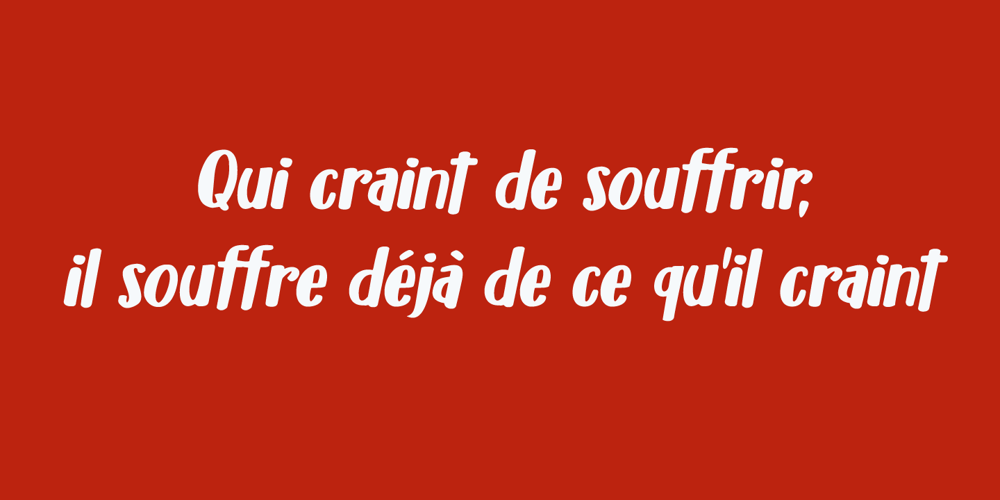
Millefeuille Font Family was designed by David Kerkhoff and published by Hanoded. Millefeuille contains 4 styles and family package options. Millefeuille literally means ‘thousand leaf’. It is a French dessert, consisting of many very thin layers of puff pastry and such fillings as whipped cream, custard, fruit, etc. Millefeuille font is a hand drawn display typeface, ideally suited for invitations, posters and product packaging. Comes with a rich filling of diacritics.